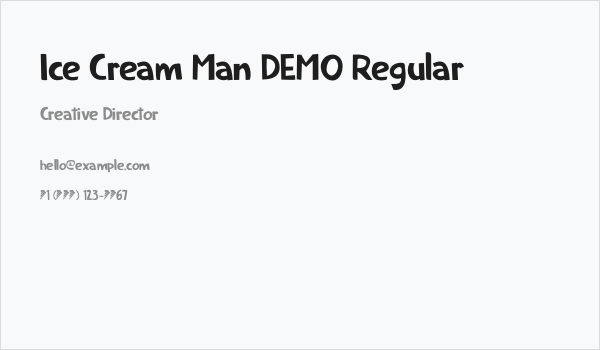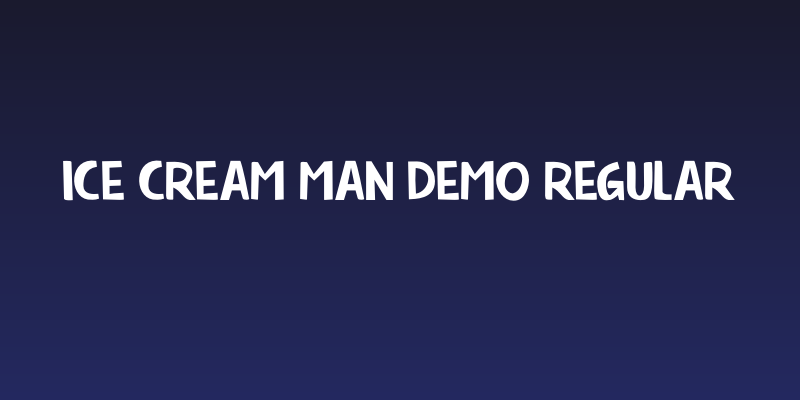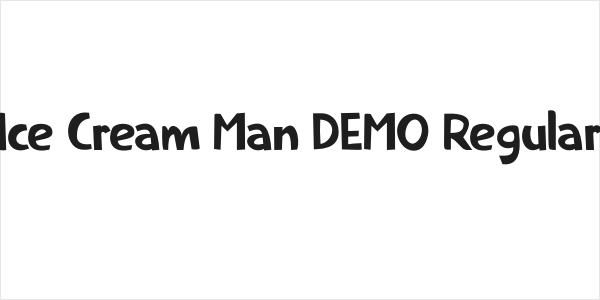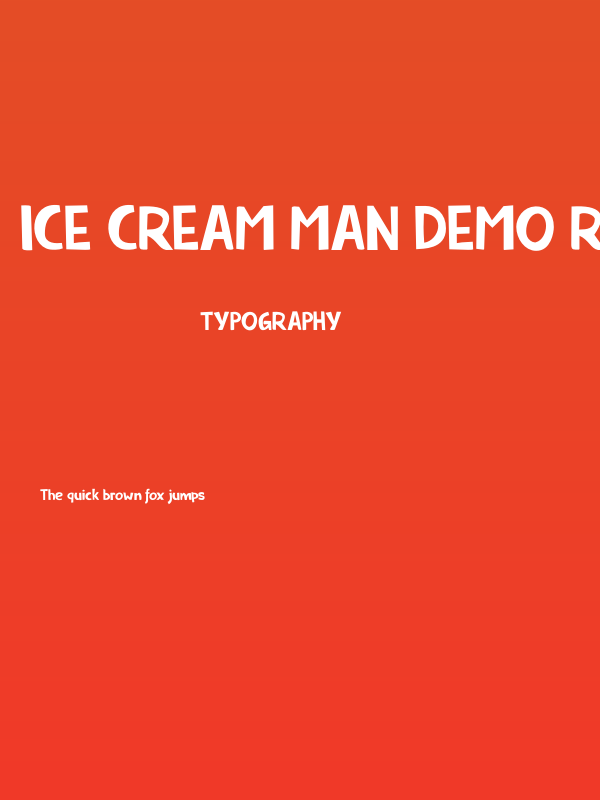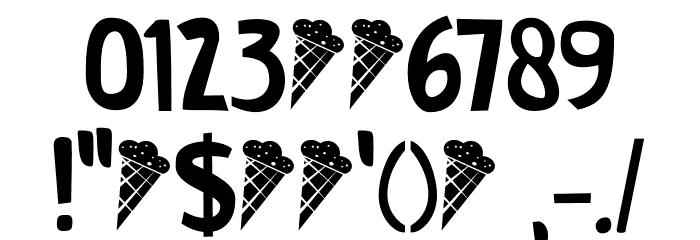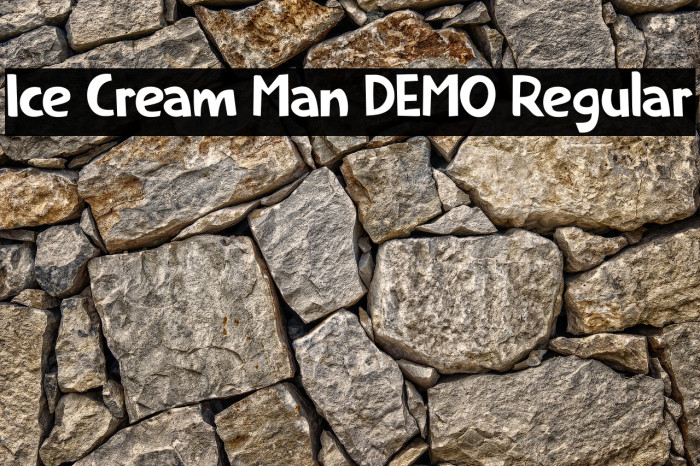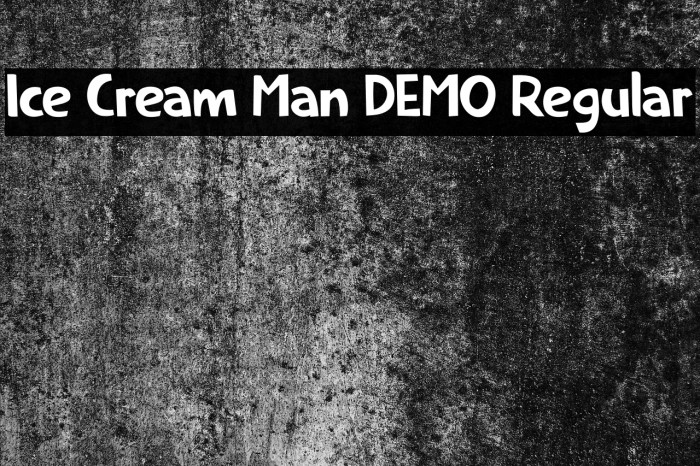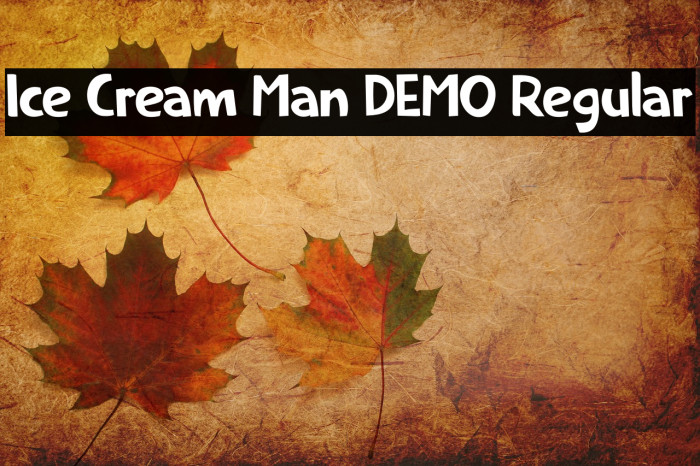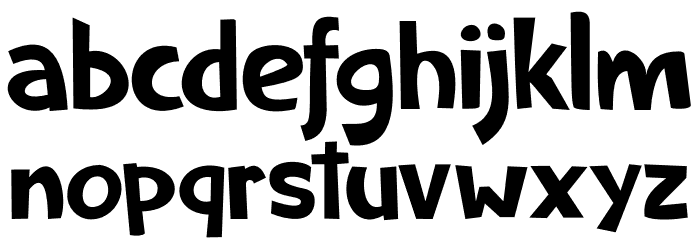
Ice Cream Man DEMO Regular Font
This playful and whimsical font features bold, rounded characters that evoke a sense of fun and creativity. The uppercase and lowercase letters are designed with a slight tilt and irregularity, adding to the casual and informal feel. The numbers and special characters maintain the same lively style, with unique elements like ice cream cone symbols that enhance its playful nature. The font's bold strokes and slightly uneven lines give it a hand-drawn appearance, making it ideal for projects that require a touch of personality and charm.
| Overall Style | Playful, Whimsical, Hand-drawn |
| Proposed Projects | Perfect for children's books, playful branding, party invitations, and creative posters. |